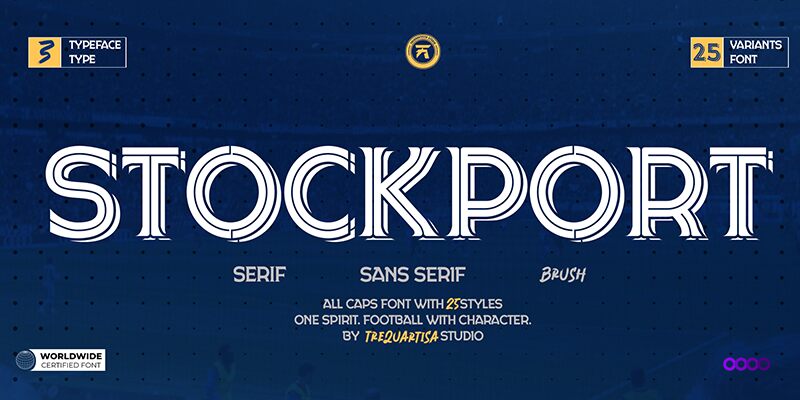
Stockport Brush font family by Trequartista Studio contains 7 font styles. This free font family has a retro-inspired design with distinctive carved letters featuring geometric influences. The dynamic style gives the font a sporty vibe and a modern versatility, ensuring a strong presence and functionality with contemporary applications.
Logos, branding projects, packaging designs, and websites can all appear in a different light with Stockport Brush alongside movie posters, flyers, sports accessories, and apparel items. Let it highlight book titles or decor items and add its numbers to special badges, jerseys, etc.